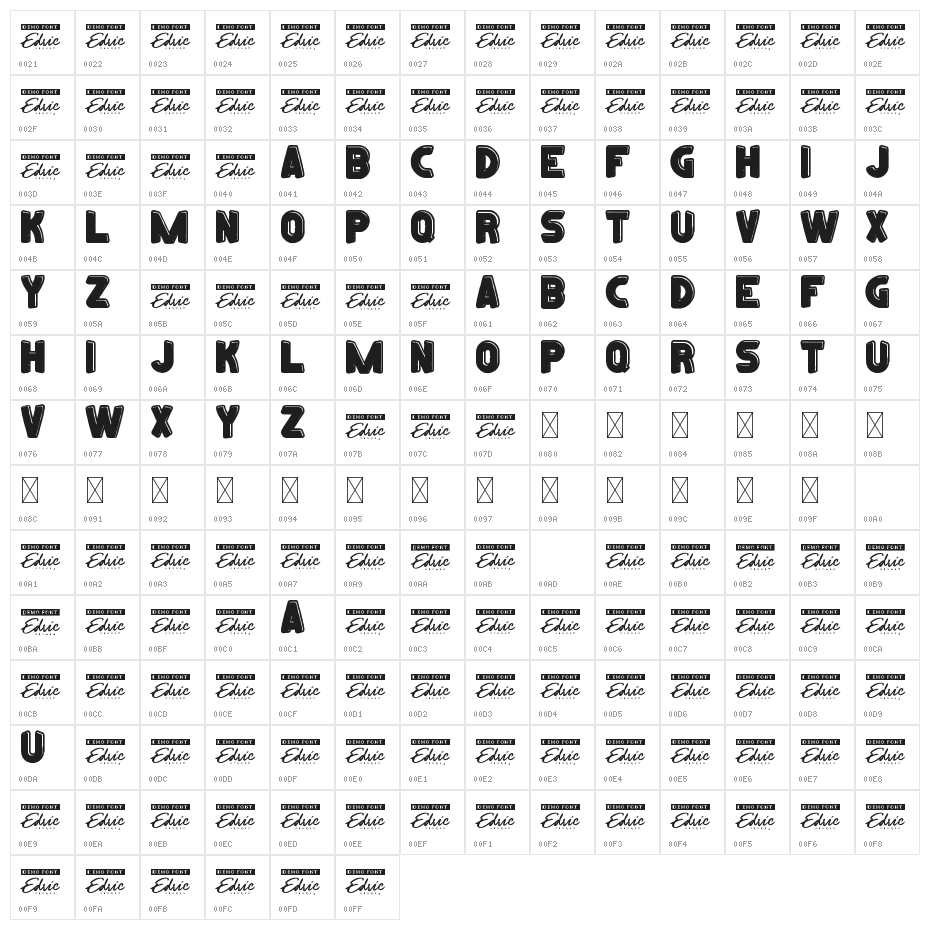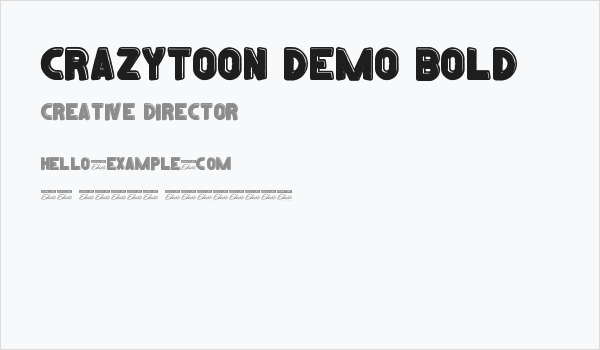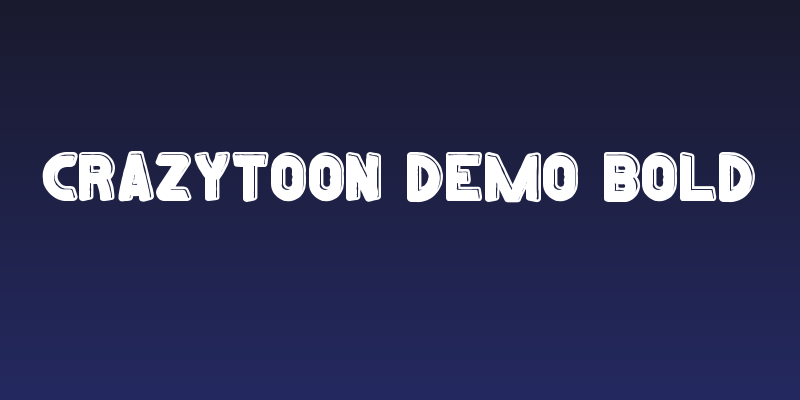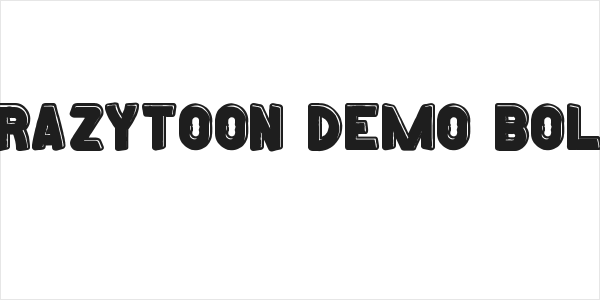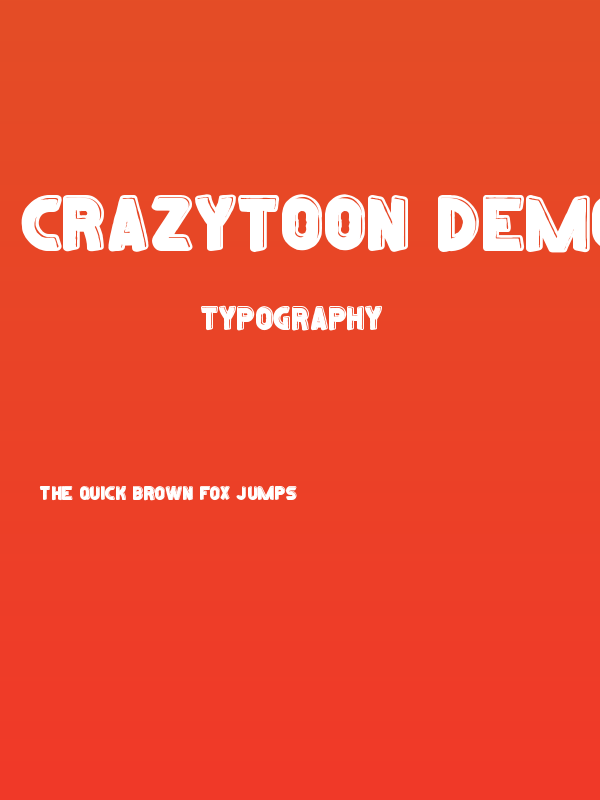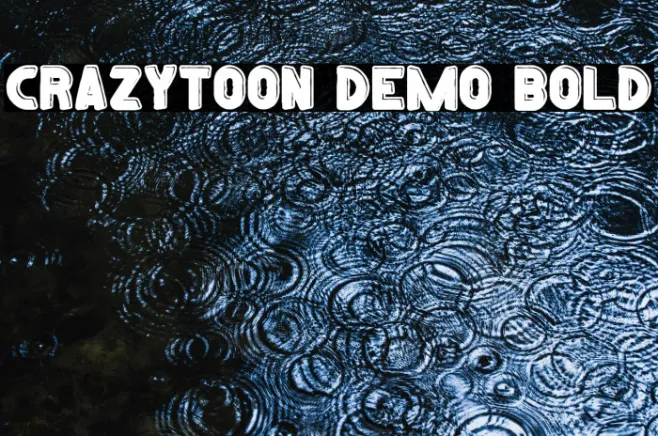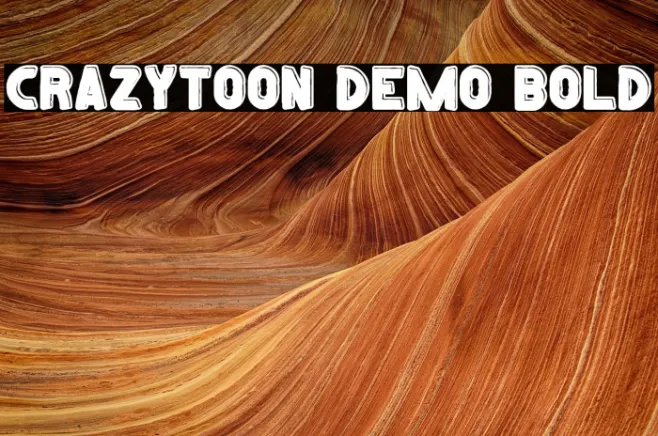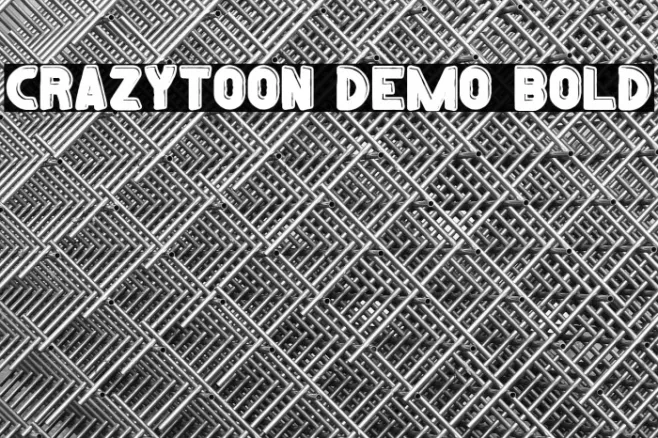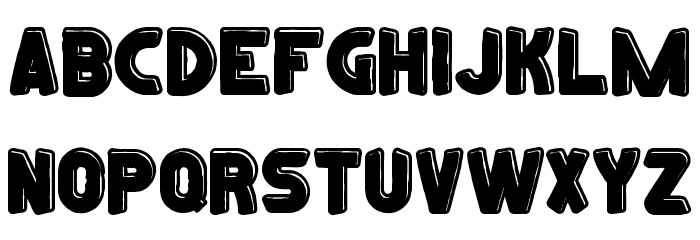
Crazytoon Demo Bold Font
Crazytoon Demo Bold Description
This font features a bold and playful style with thick, rounded strokes and a cartoonish appearance. The letters are uppercase, with a slightly condensed form that gives them a compact and energetic look. The strokes are consistent in width, providing a uniform and cohesive appearance. The font's playful nature makes it suitable for fun and informal designs, adding a touch of whimsy and creativity. Its boldness ensures that it stands out, making it ideal for attention-grabbing headlines or titles.
| Width | Condensed |
| Overall Style | Playful, Cartoonish |
| Proposed Projects | Ideal for children's books, comic strips, playful branding, and creative posters. |